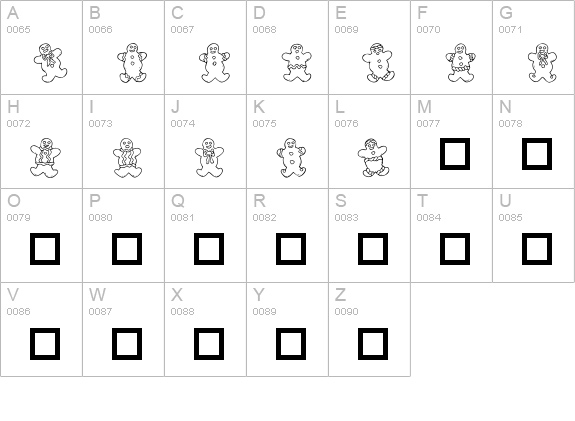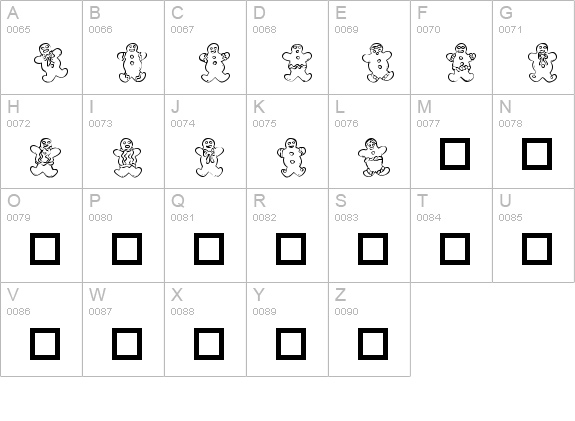
Destiny's Gingerbread Dings Font Details
Destiny's Gingerbread Dings font is a whimsical and charming typeface that adds a touch of festive cheer to any project. This delightful font features a collection of gingerbread-inspired dingbats that are perfect for adding a playful element to your designs. From cute gingerbread men to festive holiday decorations, Destiny's Gingerbread Dings font is sure to bring a smile to your audience's face. Best of all, Destiny's Gingerbread Dings font is completely free to download at FontsMarket.com! Whether you're creating holiday cards, party invitations, or social media graphics, this font is a must-have for adding a dash of seasonal spirit to your projects. Download Destiny's Gingerbread Dings font today and let your creativity shine with this fun and festive typeface.